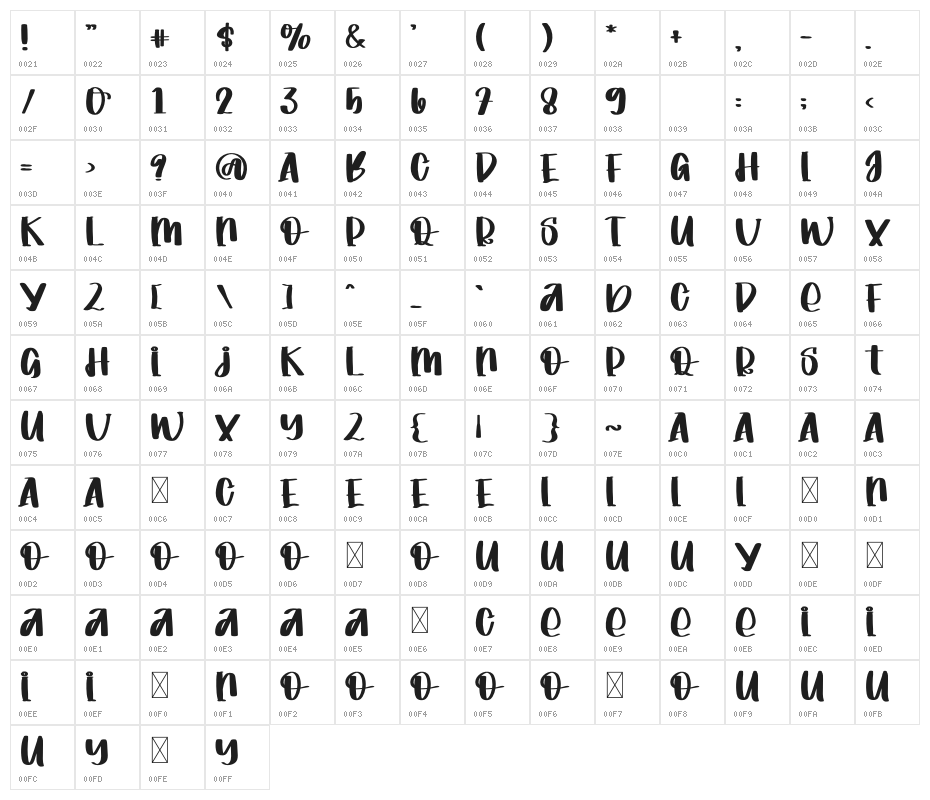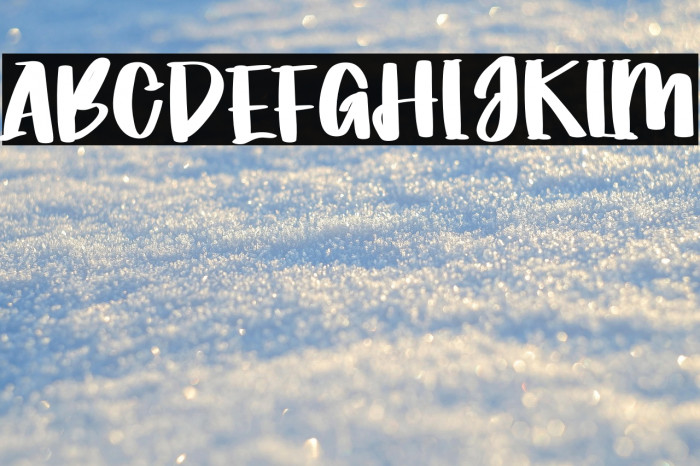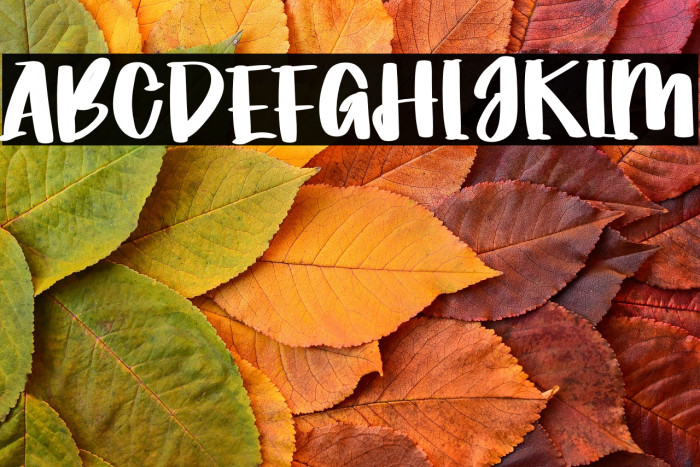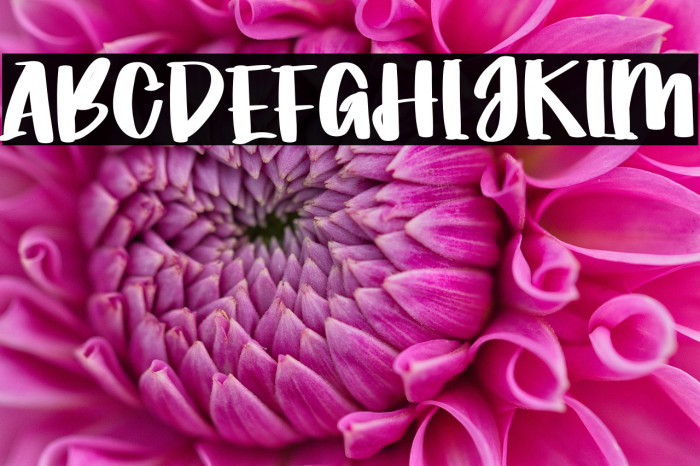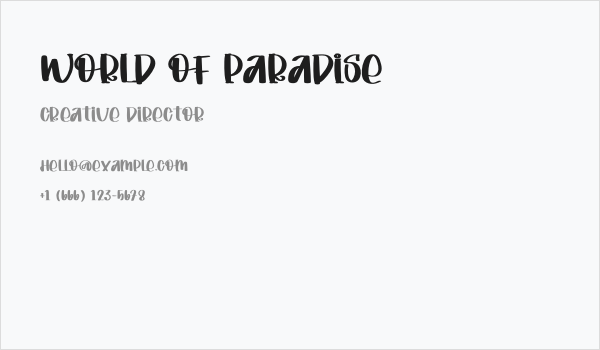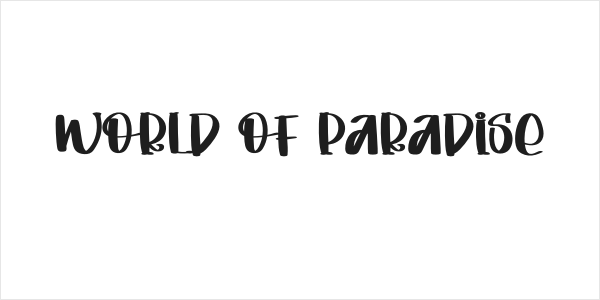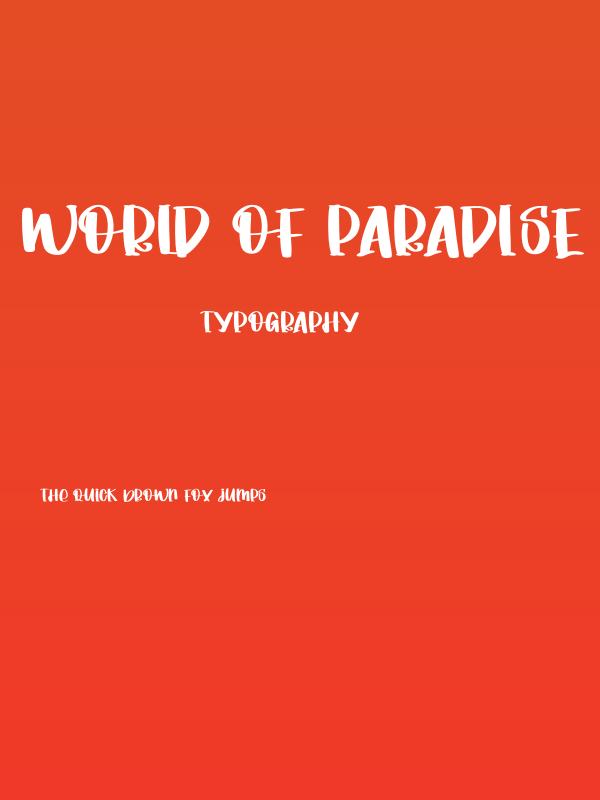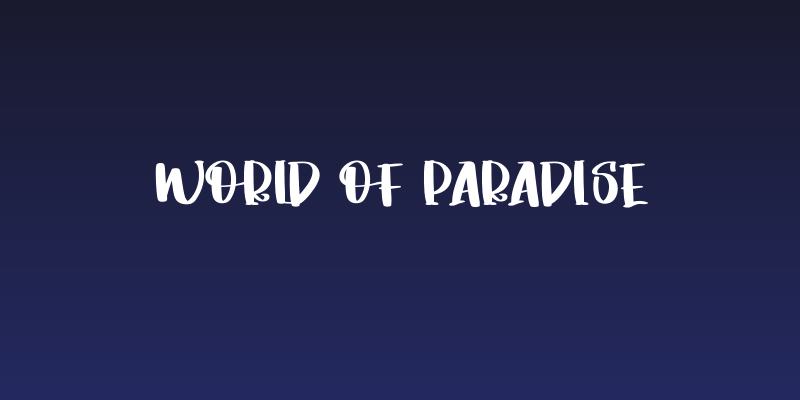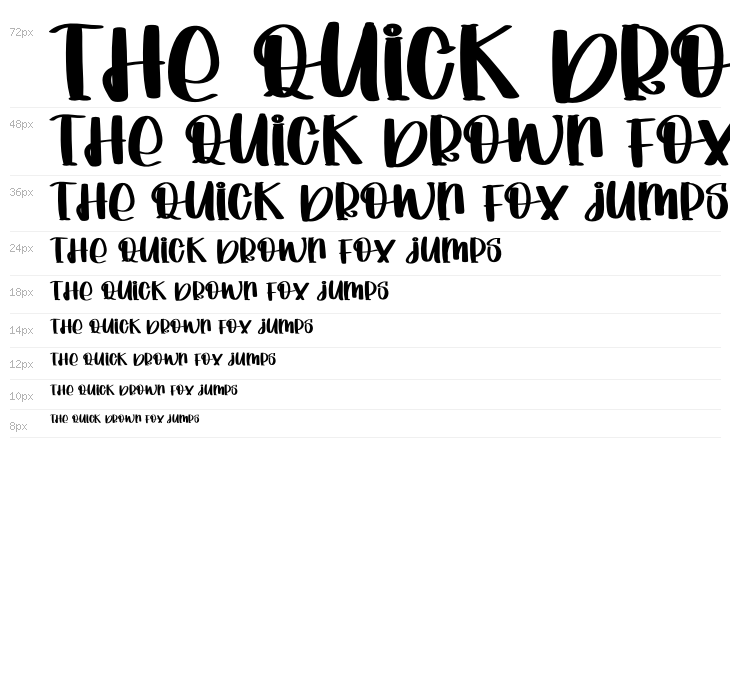
World Of Paradise Font
World Of Paradise Description
This font features a bold and expressive style with a handwritten appearance. The characters are thick and have a playful, artistic flair, making them stand out with a strong visual impact. The strokes are smooth and flowing, with a slight slant that adds to the dynamic feel. The uppercase and lowercase letters maintain a consistent style, while the numerals and special characters complement the overall design. This font exudes a sense of creativity and energy, perfect for projects that require a lively and engaging typeface.